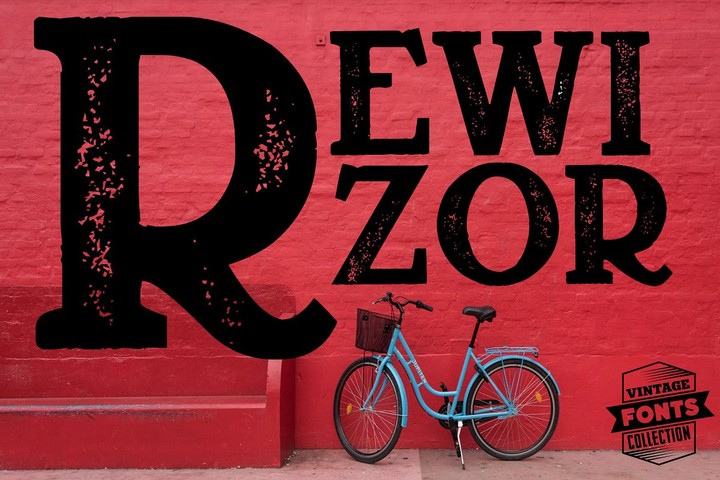
Rewizor Font
Rewizor Font is perfectly suited for literary publications, editorial design, sophisticated branding, academic presentations, cultural institution materials, book covers, magazine layouts, intellectual property branding, and premium publishing projects.
What makes Rewizor Font so exciting is its intellectual sophistication and distinctive character that instantly elevates any design project with scholarly elegance and contemporary refinement. This remarkable typeface combines classical typography principles with modern innovation, creating letterforms that convey authority, knowledge, and cultural depth while remaining highly accessible to contemporary audiences. The font's carefully crafted details and balanced proportions demonstrate exceptional typographic craftsmanship that appeals to discerning readers and design professionals. Rewizor Font stands out through its ability to convey intelligence, credibility, and artistic sensibility, making it perfect for projects that need to establish intellectual authority while maintaining visual appeal and engaging modern audiences who appreciate thoughtful, well-crafted design.
The Rewizor Font family includes Light, Regular, Medium, and Bold weights, each featuring refined italic companions that enhance the typeface's scholarly character. The family also includes small caps, old-style figures, and advanced typographic features that provide designers with comprehensive tools for sophisticated editorial and branding applications.
The technical mastery of Rewizor Font includes an extensive character set supporting multiple languages, advanced OpenType features including contextual alternates and ligatures, and meticulous spacing optimization for extended reading comfort. The font maintains exceptional performance across both digital and print applications while preserving the subtle details that give it its distinctive intellectual character and professional appeal.
Whether you're designing academic publications, creating cultural branding, developing editorial layouts, or crafting materials that require scholarly authority and visual sophistication, Rewizor Font delivers the perfect combination of intellectual credibility and contemporary design excellence that makes your projects resonate with educated audiences seeking quality content.